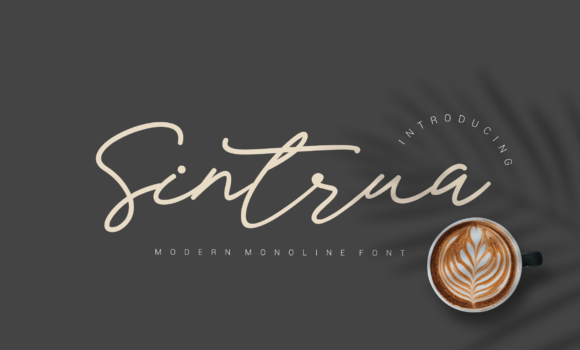
sintrua
Sintrua Font – Free Download Introduction to Sintrua Font Sintrua is a monoline, signature font with a stylish handwritten feel full of curves, swashes, lines, and more. 📸 Preview Gallery 2 images 📌 Product Name Sintrua Font 👤 Author kalingga.albert